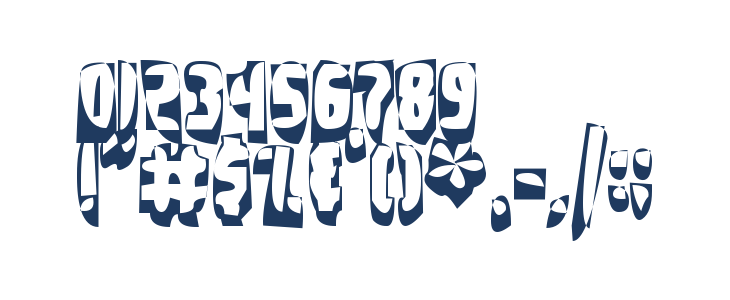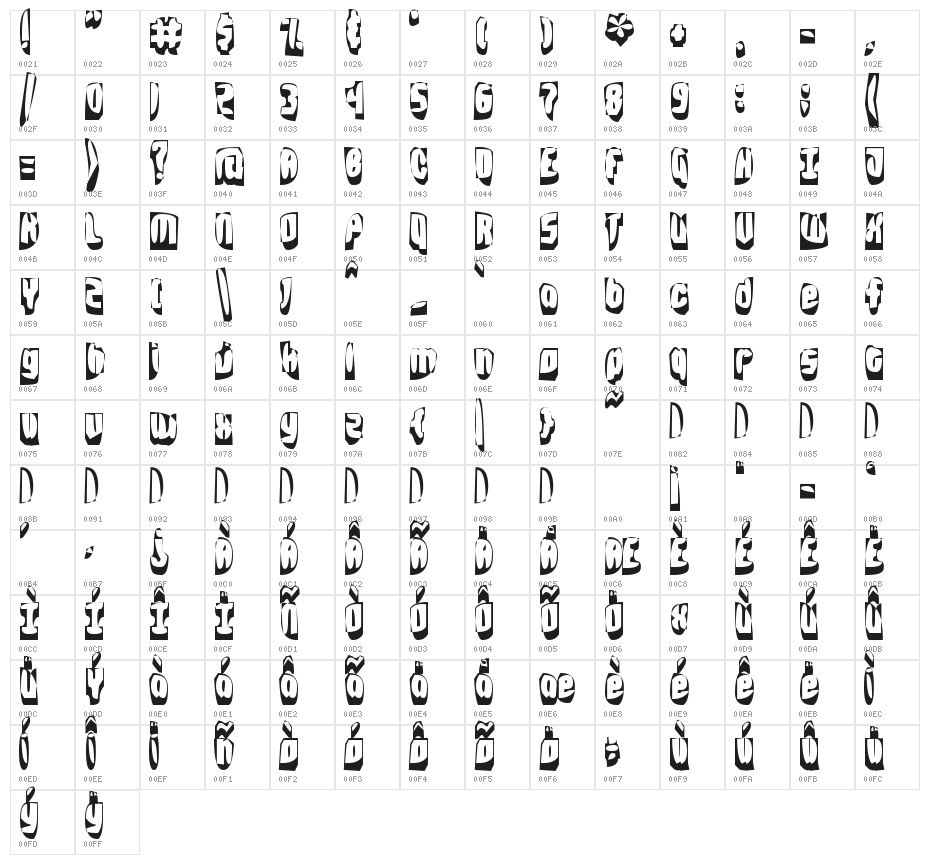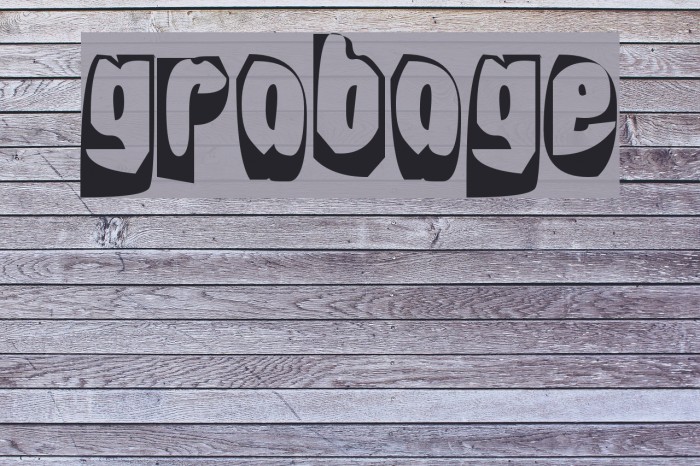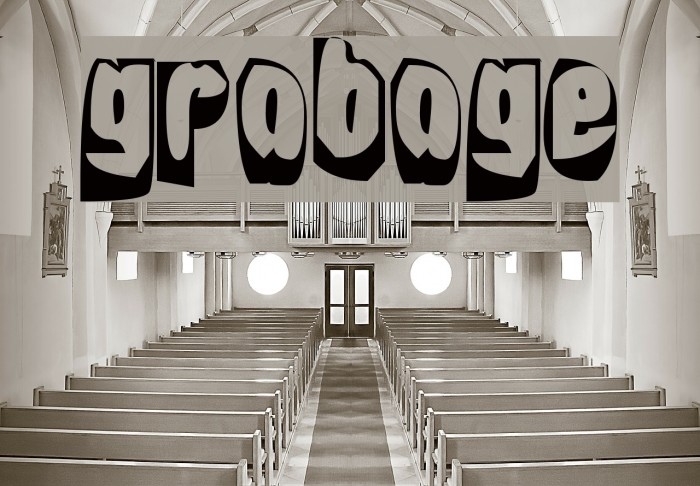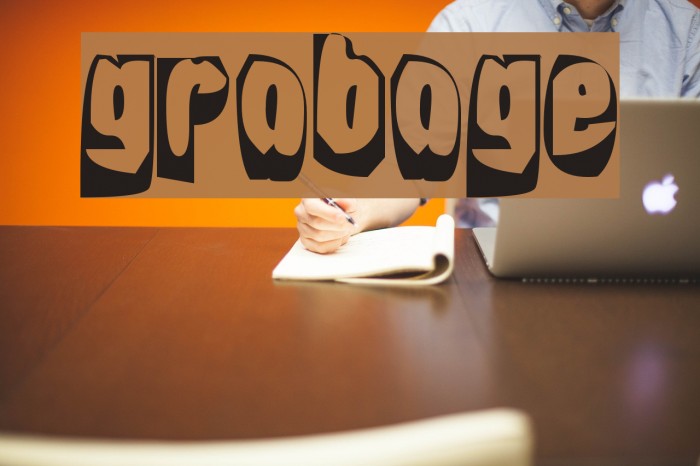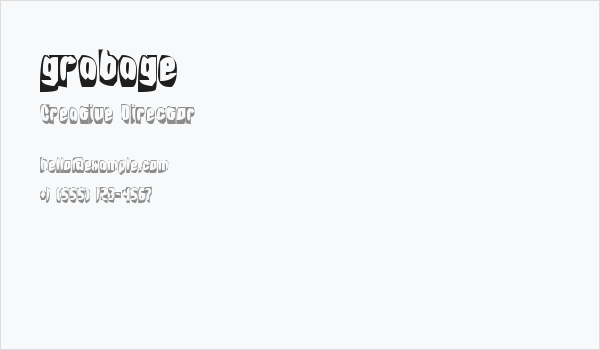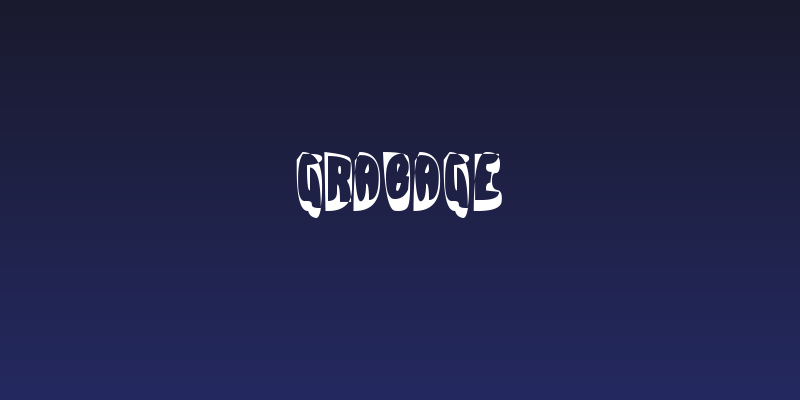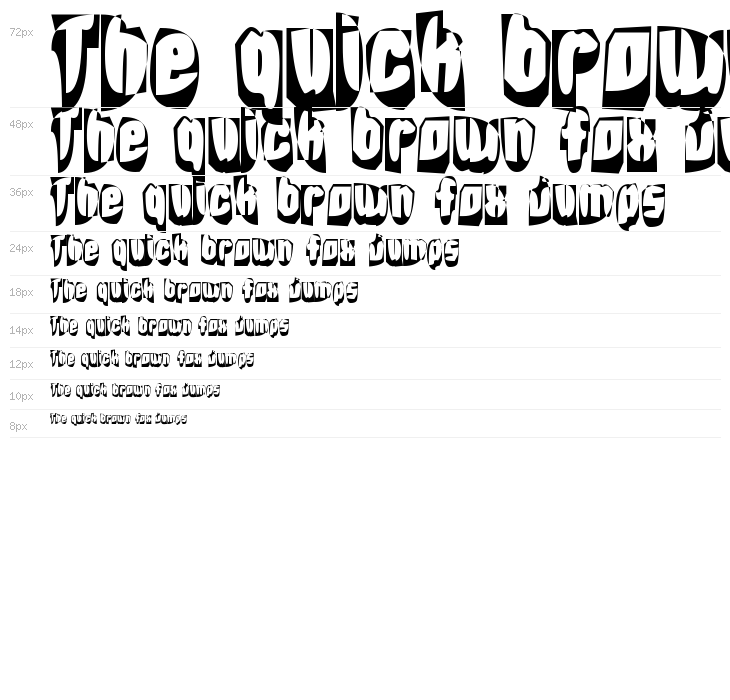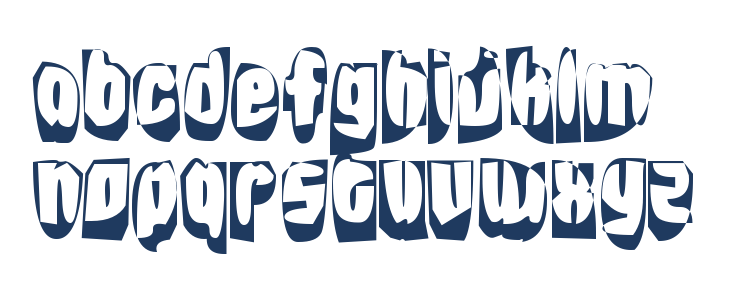
grabage Font
grabage Description
This font features a bold, playful design with a three-dimensional effect, creating a sense of depth and movement. The letters are chunky and rounded, with a shadow effect that gives them a dynamic, almost cartoon-like appearance. The style is highly decorative, making it ideal for eye-catching designs. The characters are well-defined, with a consistent thickness throughout, and the spacing is relatively tight, enhancing the boldness of the font. This font is perfect for projects that require a fun and engaging visual impact.
| Proposed Projects | Ideal for posters, children's books, comic titles, and playful branding. |